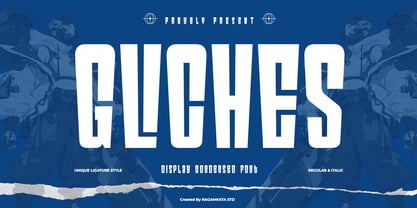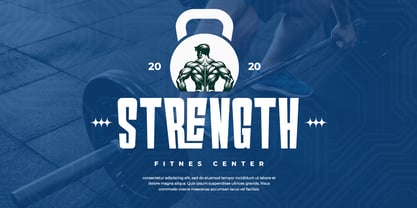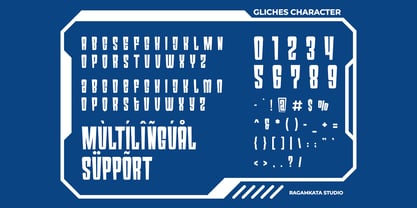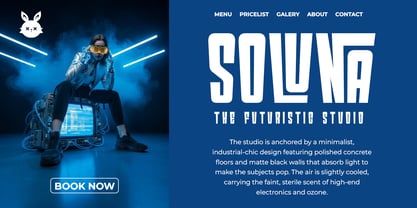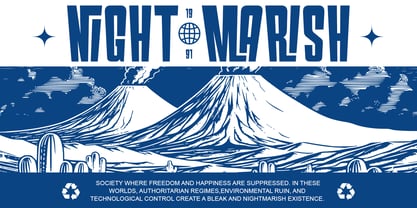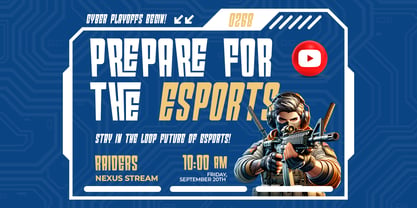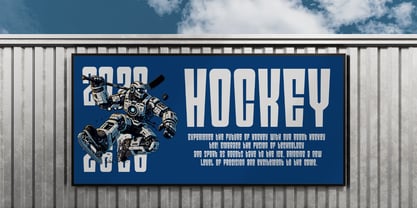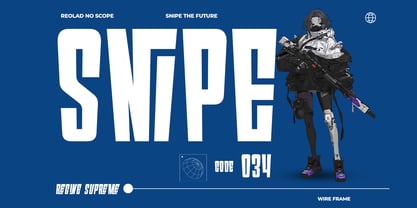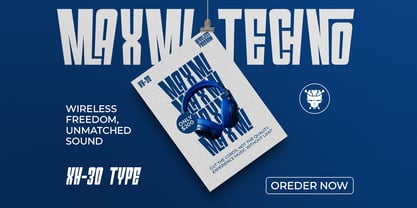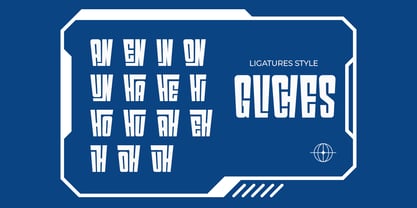
Gliches
by RagamKata
The Gliches Font Family was designed by Yogiswhara Dio Prakoso Riadi and published by RagamKata. Gliches contains 2 styles and family package options. More about this family
Gliches is a bold, condensed display font designed for high-impact visuals and a strong typographic presence. Drawing inspiration from modern gaming aesthetics and urban poster culture, this typeface strikes a remarkable balance between compact structure and powerful readability. Its tall, narrow forms are ideal for capturing attention in tight spaces while maintaining visual dominance. With a futuristic yet aggressive tone, GLICHES infuses energy into every composition. The unique ligature style offers a distinctive twist, providing designers with enhanced creative flexibility for crafting logos, headlines, or branding systems. Whether you're developing esports visuals, streetwear branding, or digital campaigns, this font instantly injects personality. From posters to social media graphics, GLICHES excels in bold environments. Its clean geometry, combined with stylistic ligatures, makes it versatile for both modern and experimental designs. If you seek a font that embodies loudness, confidence, and an unapologetically modern aesthetic—this is the perfect choice.
Designers: Yogiswhara Dio Prakoso Riadi
Foundry: RagamKata